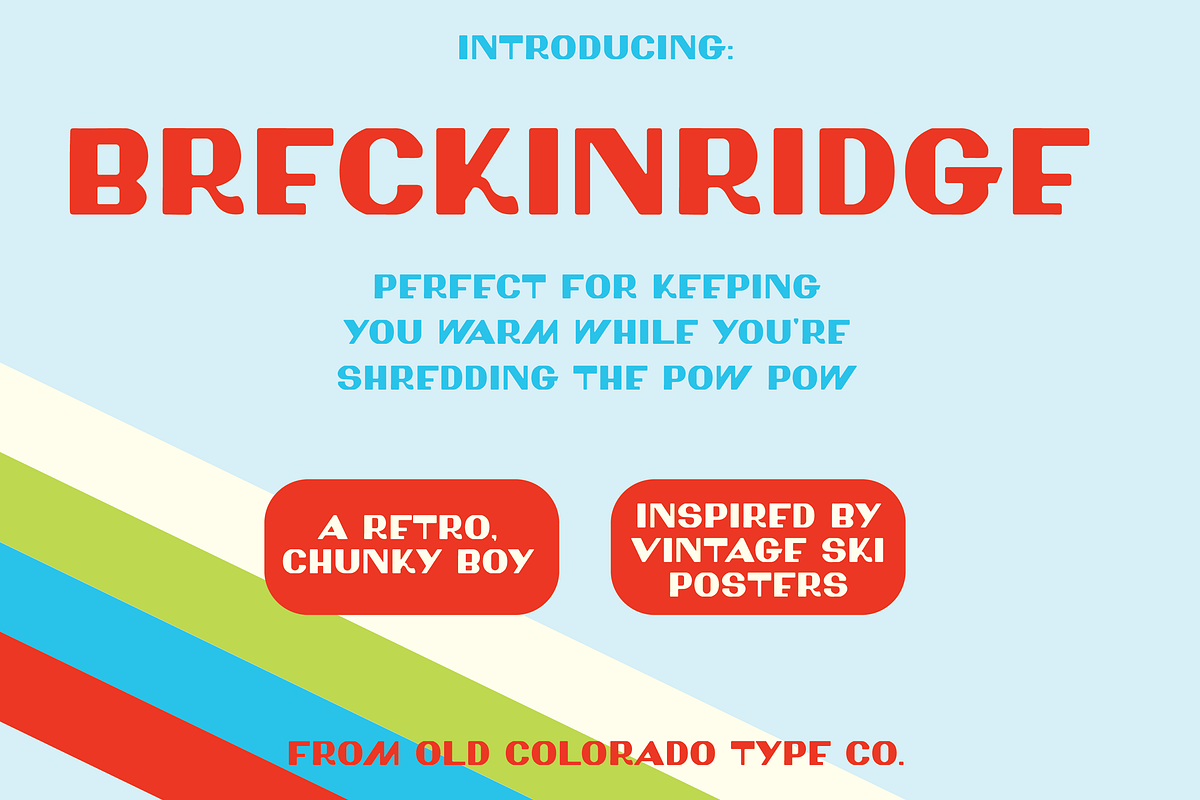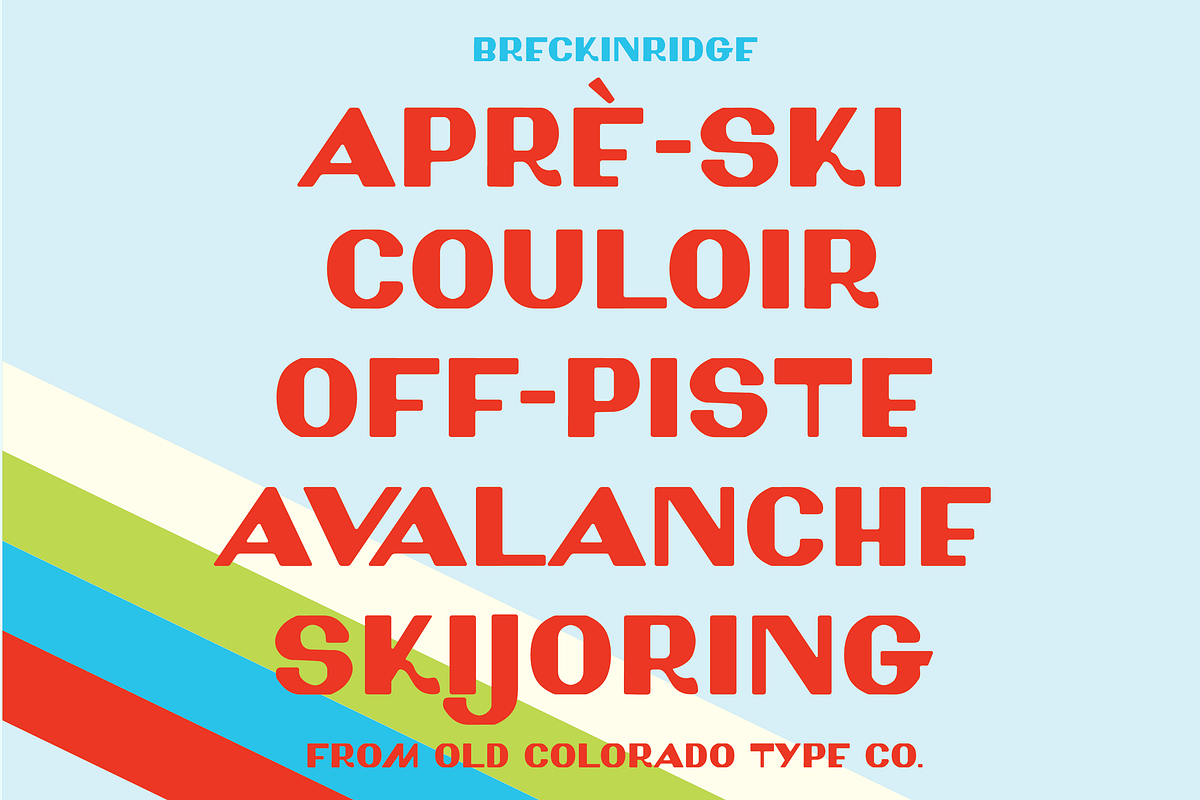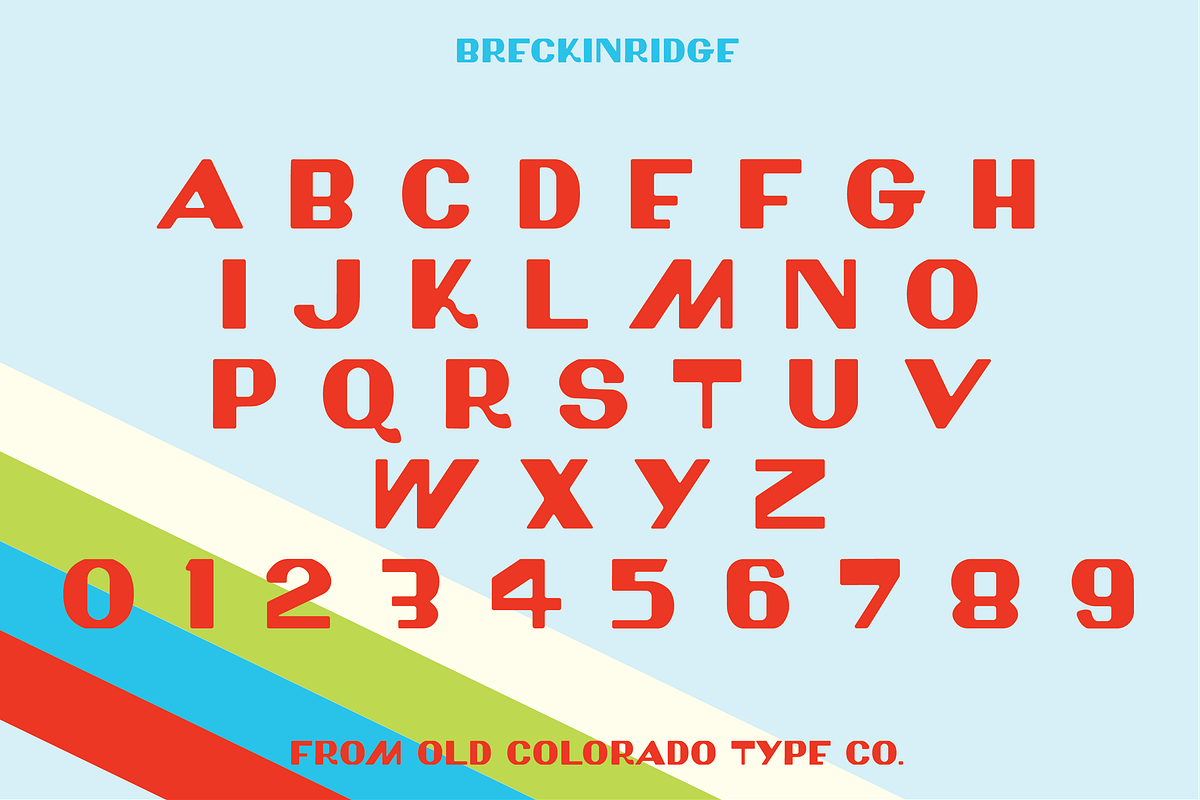
BRECKINRIDGE by Old Colorado Type Co
Inspired by letters from vintage ski posters, this type is perfectly wonky where it needs to be. It's perfect for your retro project that needs a little bit more personality.